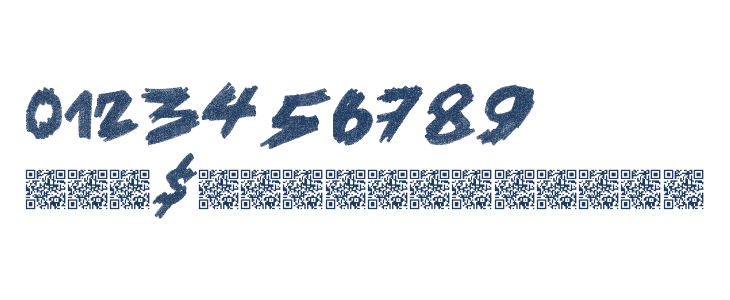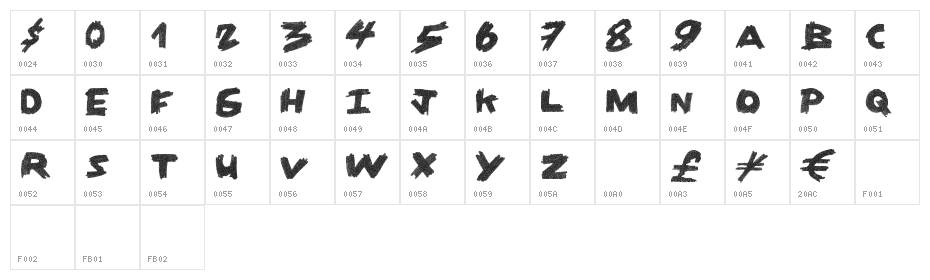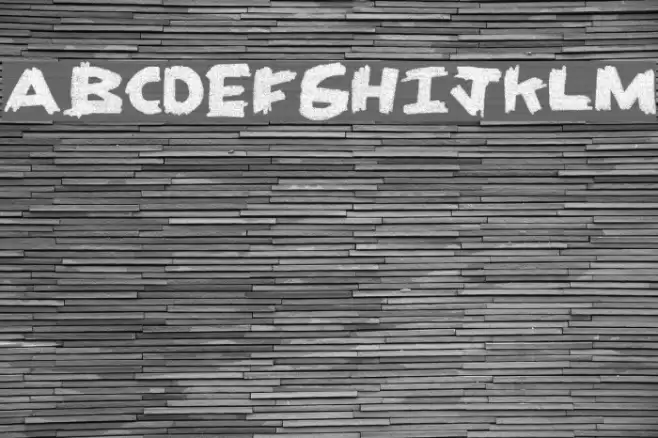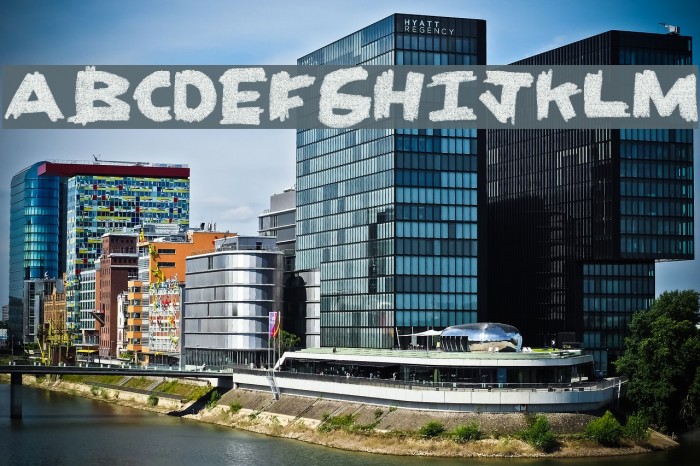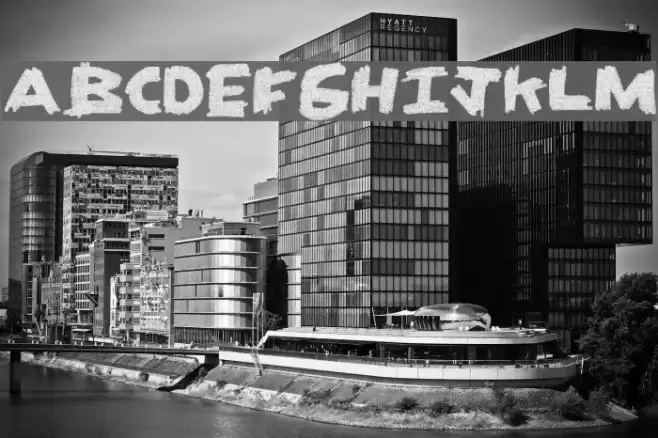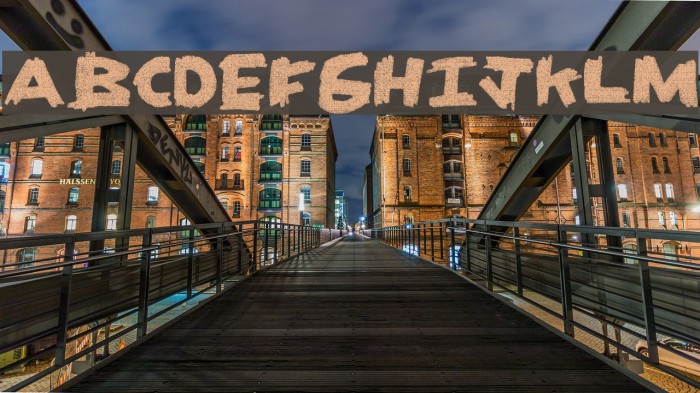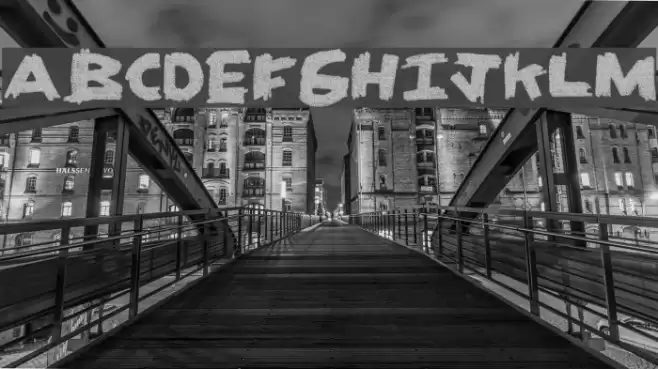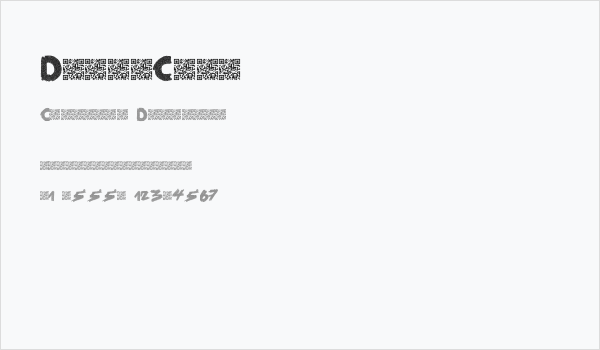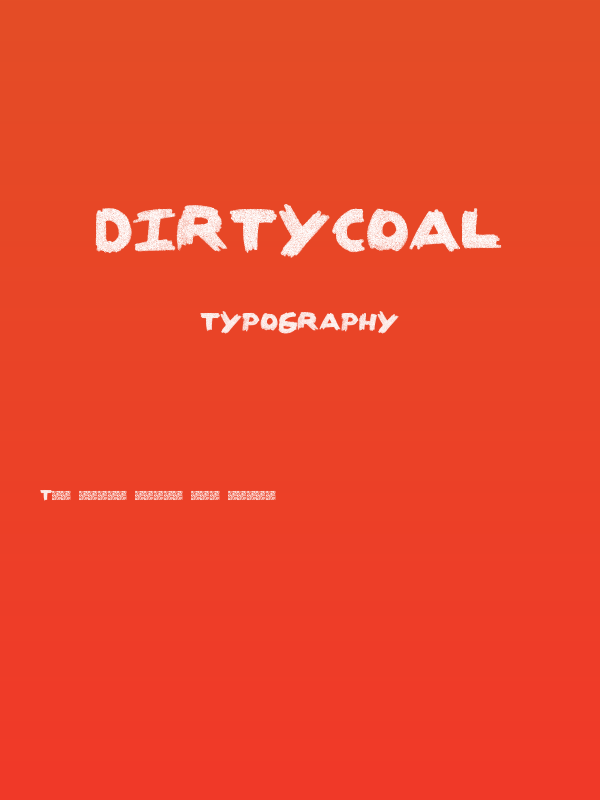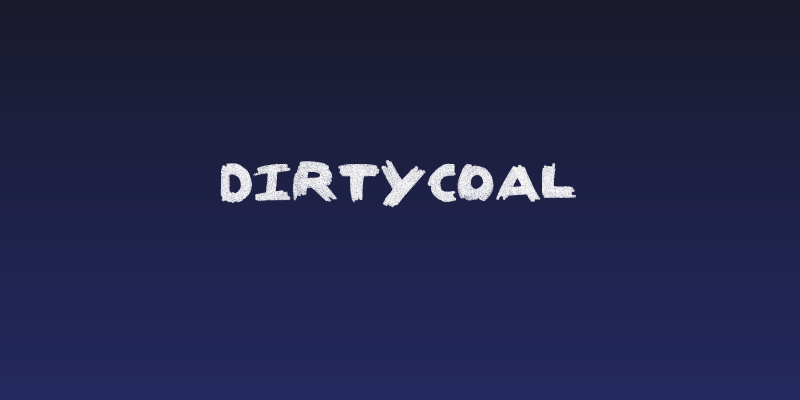
DirtyCoal Font
DirtyCoal Description
This font exhibits a rugged and textured appearance, reminiscent of rough brush strokes or charcoal sketches. The characters are bold and dynamic, with an irregular and distressed look that adds a sense of movement and energy. The uppercase letters are particularly striking, with varying thicknesses and angles that create a sense of spontaneity. The numbers and special characters maintain this aesthetic, ensuring consistency across all glyphs. This font's unique style makes it stand out, offering a raw and edgy feel that is both artistic and impactful.